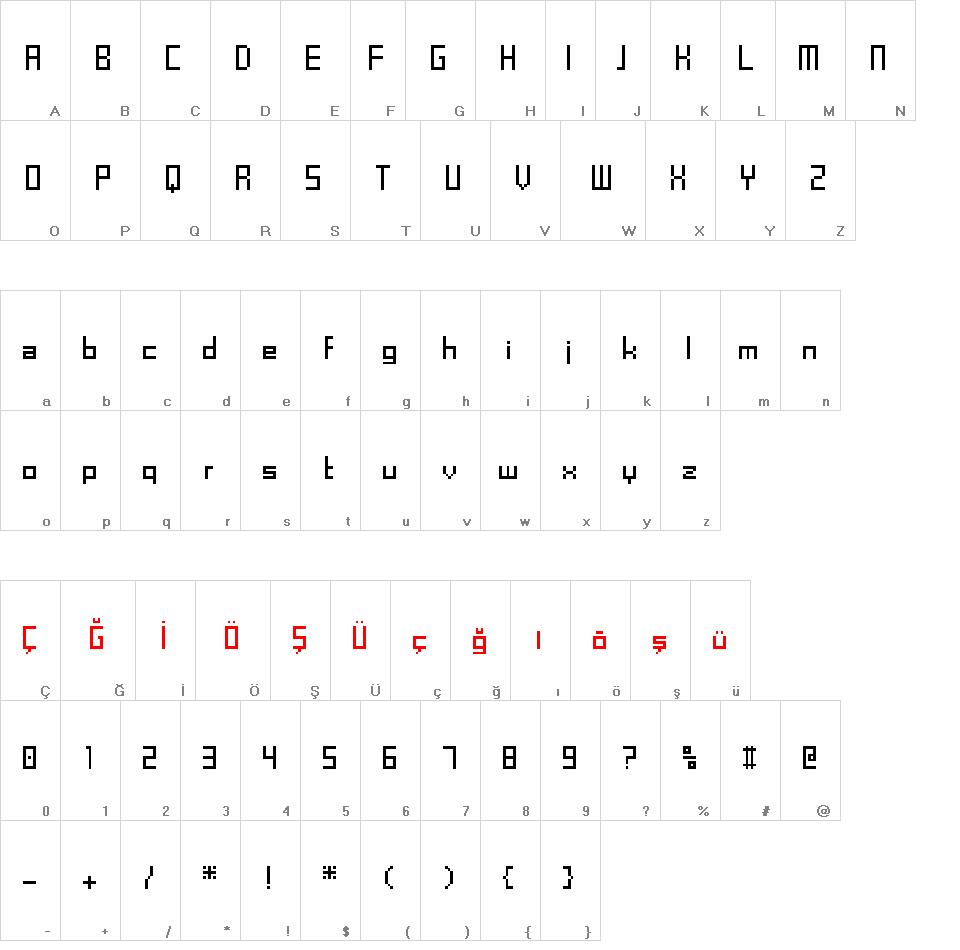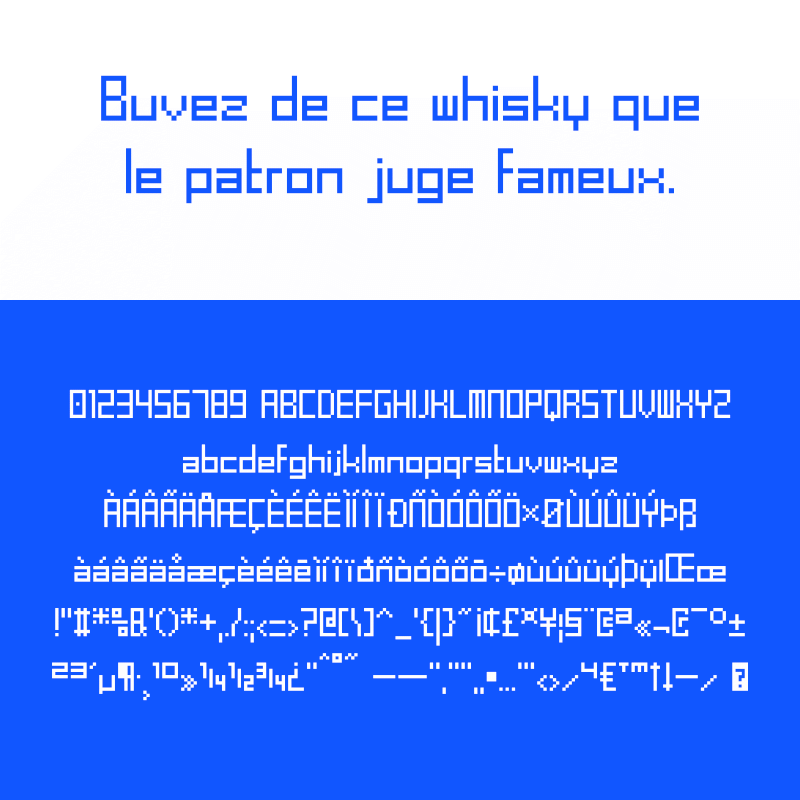
SchoonSquare font
SchoonSquare is a pixel font created by Michiel van Kleef and based on a 5x9 grid. It was originally made in BitFontMaker and then optimized, corrected and saved in FontForge.